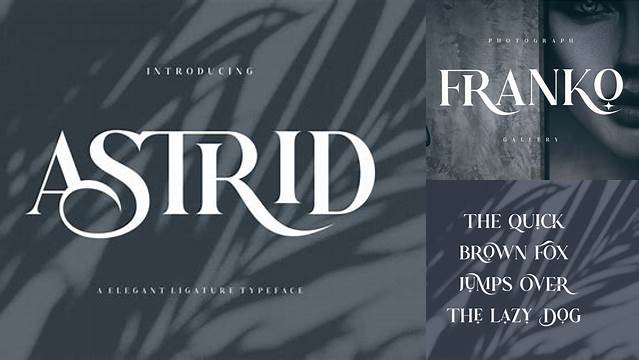
Astrid Font: Free Elegant Ligature Download
1. What is Astrid Font?
Astrid Font is not just another typeface; it's a work of art. This elegant ligature font is designed to add a touch of class to any project, whether it's branding, web design, or print materials. The beauty of Astrid lies in its ligatures β those fancy connections between letters that create a seamless and polished look. Imagine the flowing curves and the harmonious blend of each character, making your text not just readable, but absolutely captivating. Astrid Font free download options are highly sought after by designers who want to infuse their work with a premium feel without breaking the bank. Itβs a font that speaks volumes, making it a favorite for invitations, logos, and headlines.
2. Key Features of Astrid Elegant Ligature Font
So, what makes Astrid so special? Let's break down the key features that set this font apart. First off, the ligatures are the star of the show. These aren't your run-of-the-mill letter connections; they're carefully crafted to enhance the overall aesthetic. Astrid Font boasts a wide range of ligatures, ensuring that your text looks unique and custom-made. Beyond ligatures, the font's elegant curves and balanced letterforms contribute to its sophisticated appeal. It's versatile enough to work in various design contexts, from minimalist layouts to more ornate compositions. Plus, with the possibility of a free download, Astrid offers incredible value for designers on any budget. You'll find yourself reaching for it time and time again for projects that need that extra touch of elegance.
4. Using Astrid Font in Branding
When it comes to branding, the right font can make or break your visual identity. Astrid Font, with its elegant ligatures and refined style, is a fantastic choice for brands that want to convey sophistication and class. Think high-end fashion labels, luxury hotels, or boutique businesses. The font's unique character helps create a memorable logo and brand name that stands out from the competition. Astrid Font free download availability makes it an accessible option for startups and small businesses looking to establish a premium brand image without hefty font licensing fees. Imagine your brand name set in Astrid, gracing everything from your website to your business cards β it's a surefire way to make a lasting impression.
5. Astrid Font for Web Design
Web design is all about creating a user experience that's both visually appealing and easy to navigate. Astrid Font can play a significant role in achieving this, particularly for websites that aim for a sophisticated and polished look. Using Astrid Font in headings and titles can add a touch of elegance, drawing the reader's eye and making your content more engaging. However, it's essential to use it sparingly β too much of a decorative font can overwhelm the design. Pairing Astrid with a simpler, more readable font for body text ensures that your website remains user-friendly. The possibility of a free download means you can experiment with Astrid on your site without any financial commitment, making it a smart choice for web designers.
6. Astrid Font in Print Materials
Print materials still hold a special place in the design world, and Astrid Font can help you create stunning brochures, invitations, and marketing collateral. The font's elegant ligatures and refined letterforms translate beautifully to print, adding a touch of luxury to your designs. Imagine wedding invitations, business cards, or product packaging featuring Astrid Font β it's a surefire way to impress. When preparing your print designs, make sure to use a high-resolution version of the font to avoid any pixelation. And, of course, the allure of a free download means you can allocate your budget to other aspects of your print project. Astrid in print is all about making a statement of elegance and quality.
7. Pairing Astrid Font with Other Fonts
Font pairing is an art form, and mastering it can take your designs to the next level. Astrid Font, with its distinct personality, plays well with certain typefaces. Generally, it's best to pair a decorative font like Astrid with a simpler, more neutral font. Think classic sans-serif fonts like Helvetica or Arial for body text, which will provide a clear contrast and ensure readability. A clean serif font like Times New Roman can also work well, adding a touch of tradition. The key is to create a visual hierarchy β Astrid grabs attention in headlines, while the supporting font handles the bulk of the text. With a free download at your disposal, you have the freedom to experiment with various font pairings until you find the perfect match for your project.
8. Astrid Font for Logos and Headlines
Logos and headlines are prime real estate for showcasing the elegance of Astrid Font. Its unique ligatures and stylish letterforms make it ideal for creating memorable and impactful designs. A logo set in Astrid Font can instantly convey a sense of luxury and sophistication, making it a great choice for brands targeting a discerning audience. Similarly, using Astrid for headlines can draw the reader's eye and make your content more engaging. However, it's important to ensure that the font remains legible, especially in smaller sizes. Experiment with different weights and styles to find the perfect balance. And, of course, the free download option means you can test out Astrid in your logo and headline designs without any financial risk.
9. Astrid Font for Invitations
Invitations are all about making a first impression, and Astrid Font can help you set the right tone. Whether it's a wedding invitation, a birthday party invite, or a corporate event announcement, Astrid's elegant ligatures add a touch of sophistication and class. The font's refined style is perfect for conveying a sense of occasion and importance. Imagine the delight of your guests when they receive an invitation featuring Astrid Font β it's a surefire way to make them feel special. The best part? With a free download, you can create stunning invitations without blowing your budget. Astrid for invitations is all about adding that extra touch of elegance and making your event memorable.